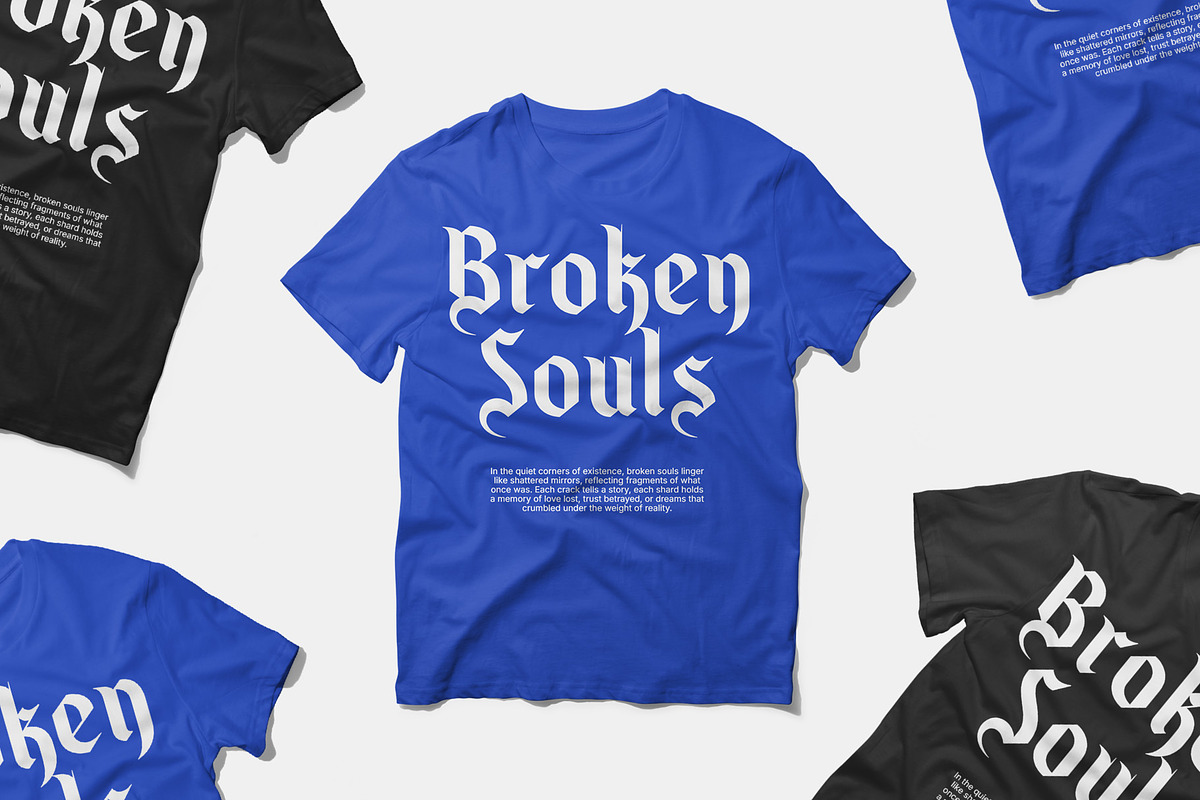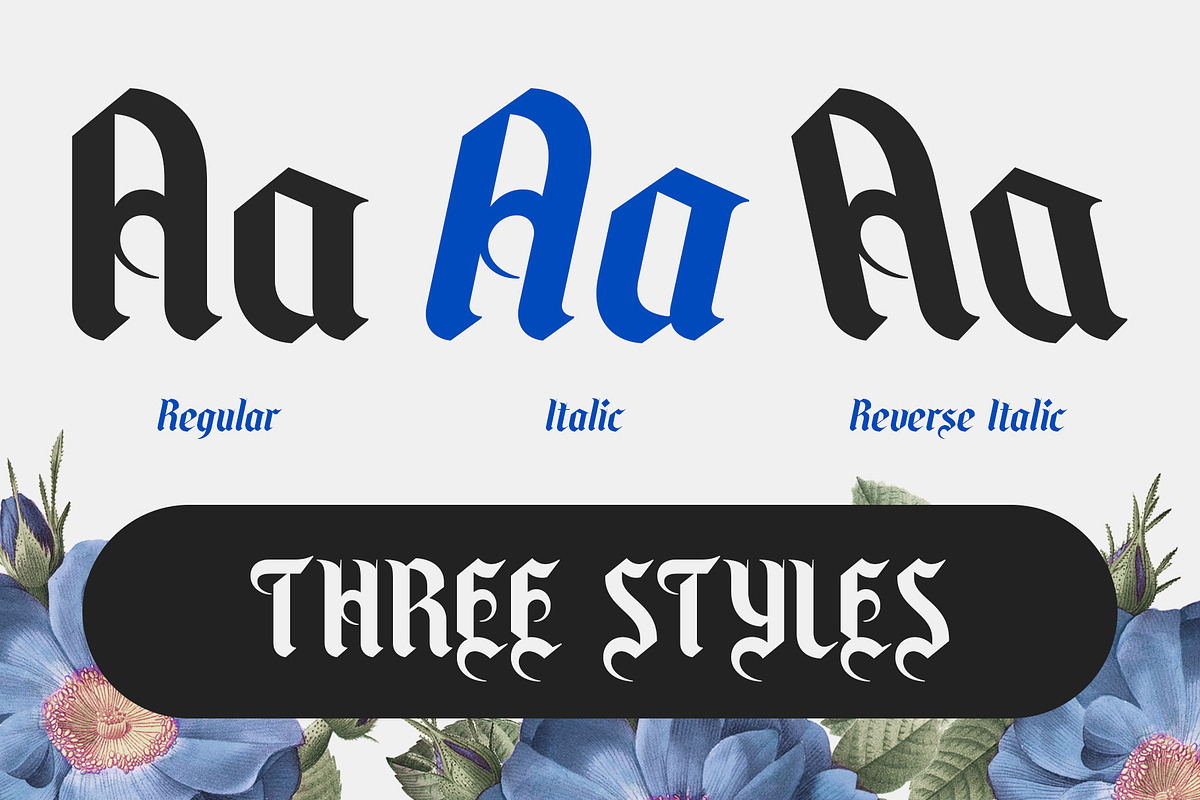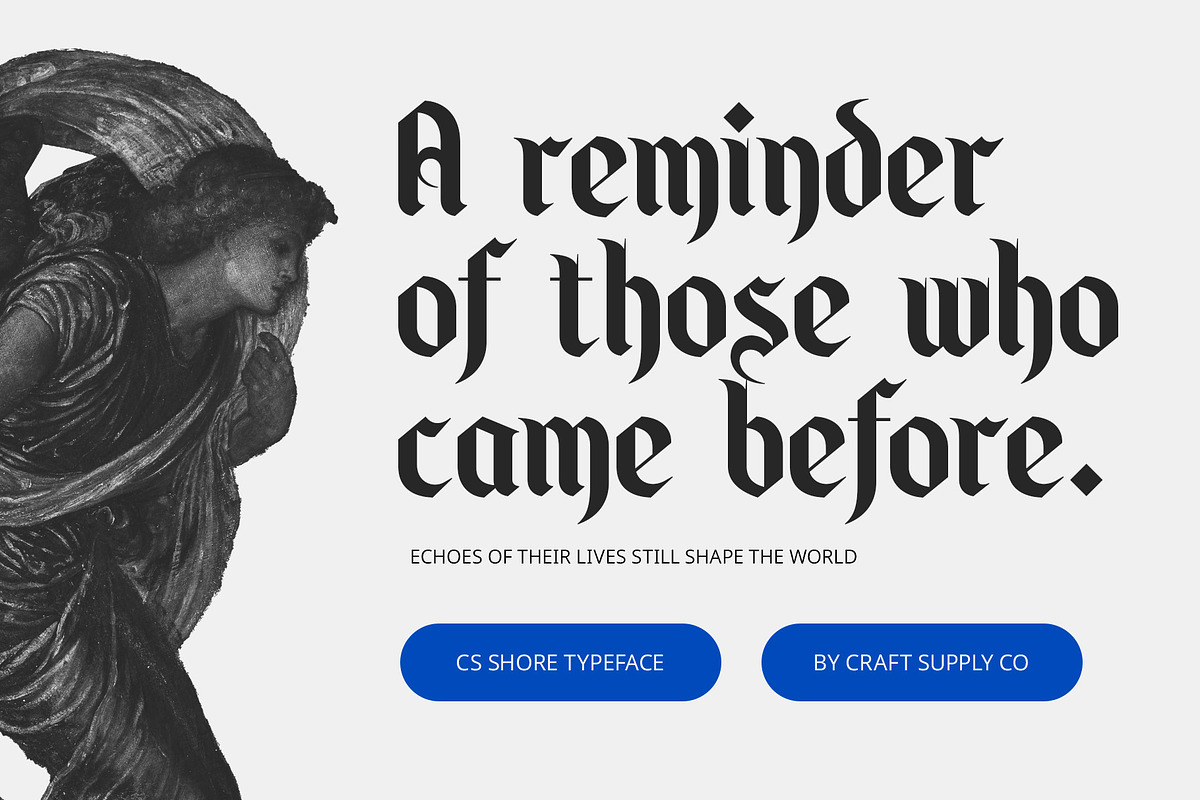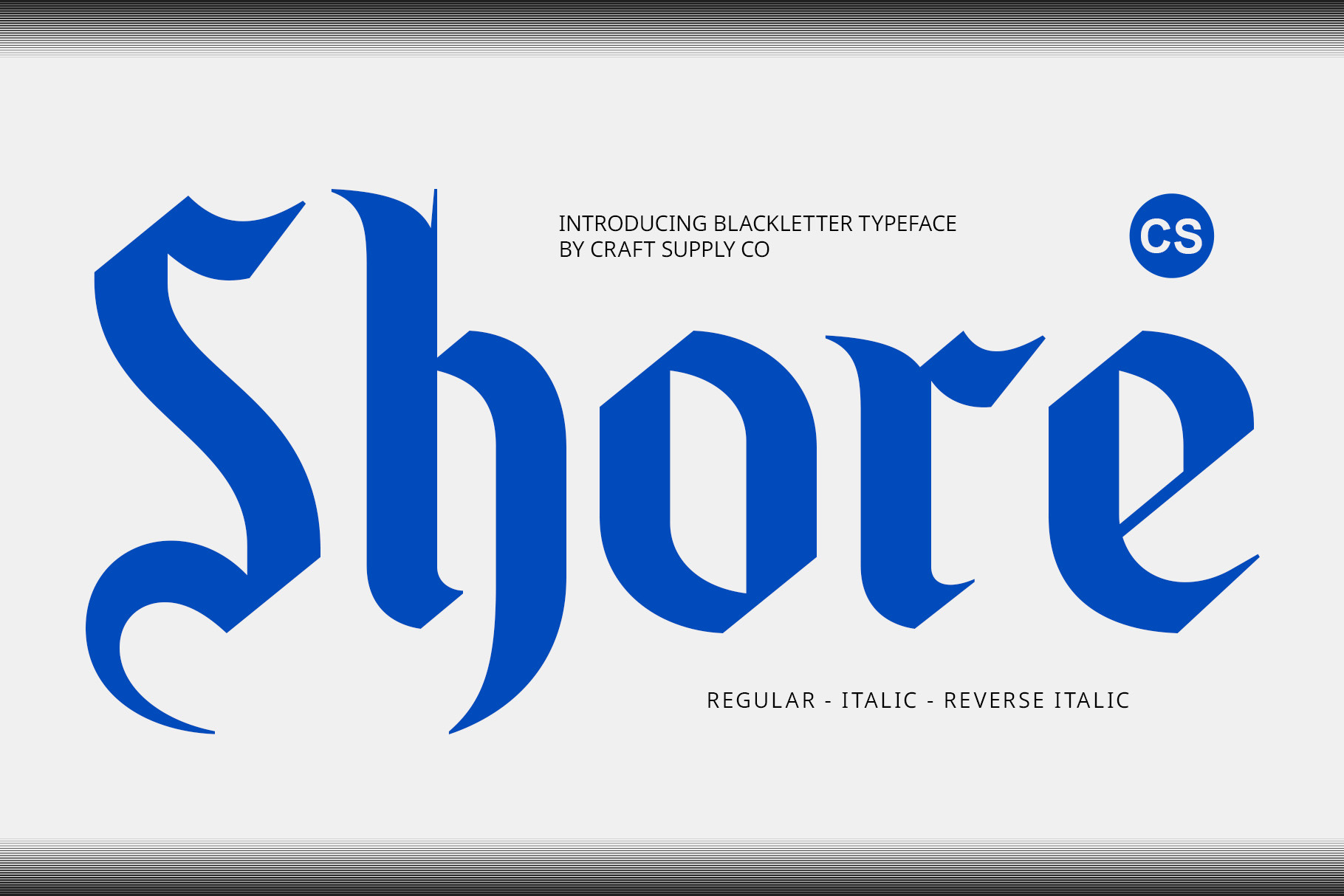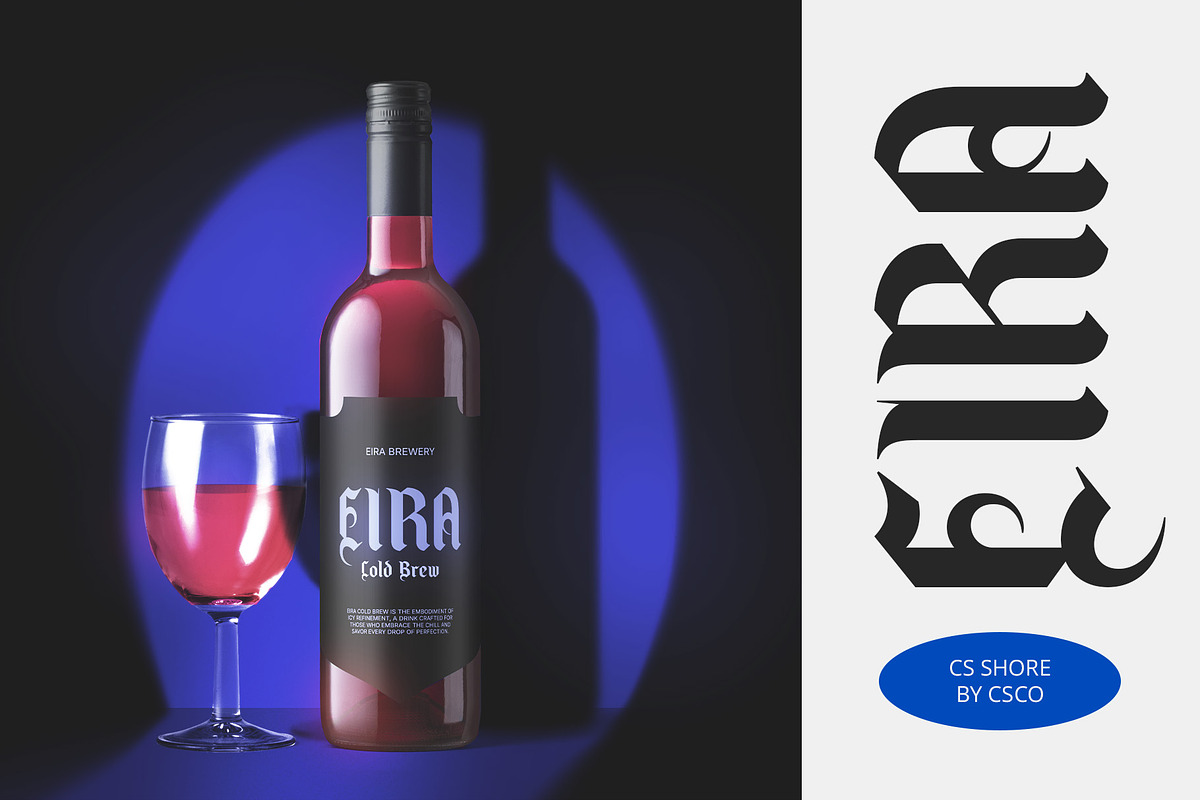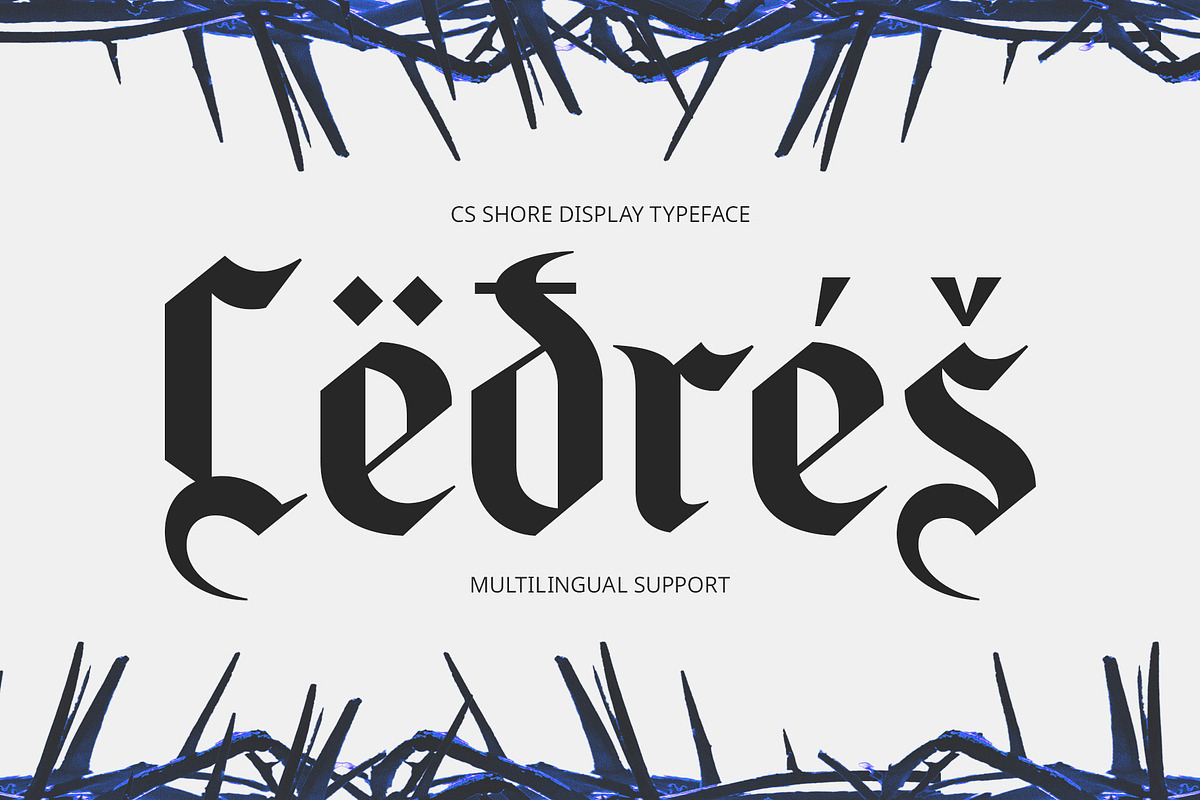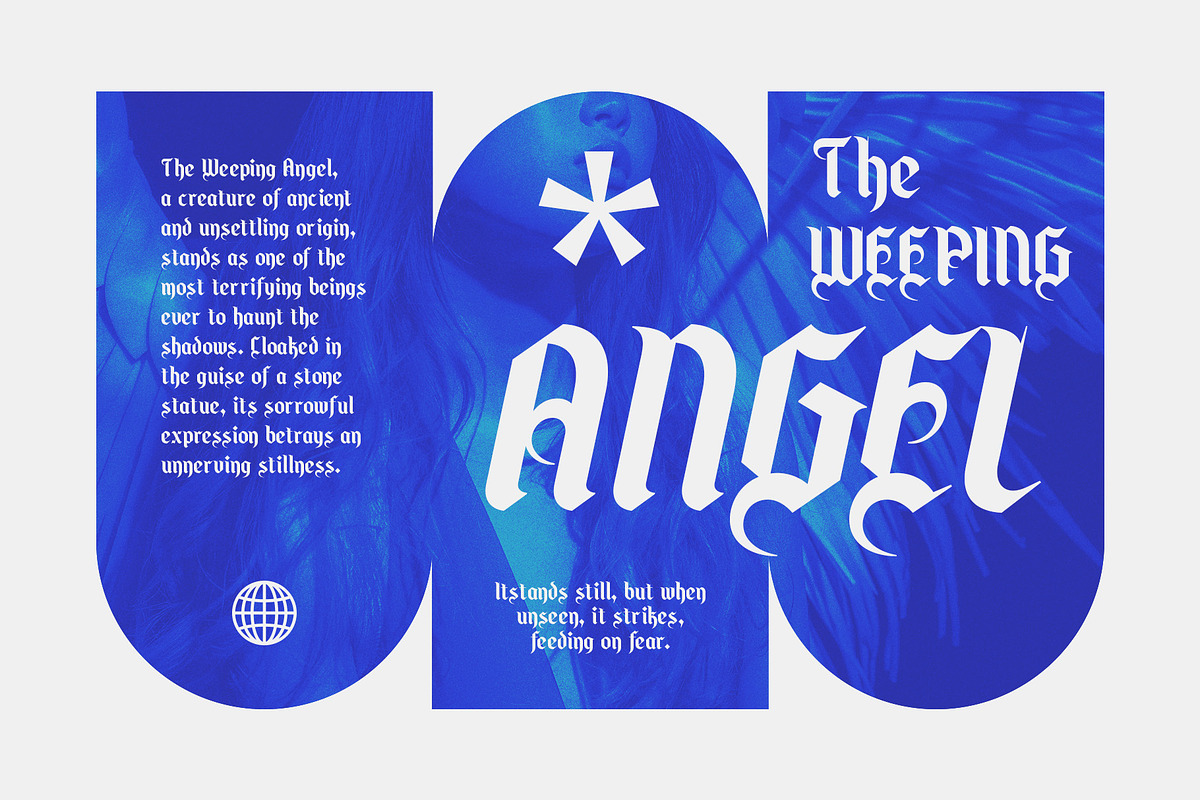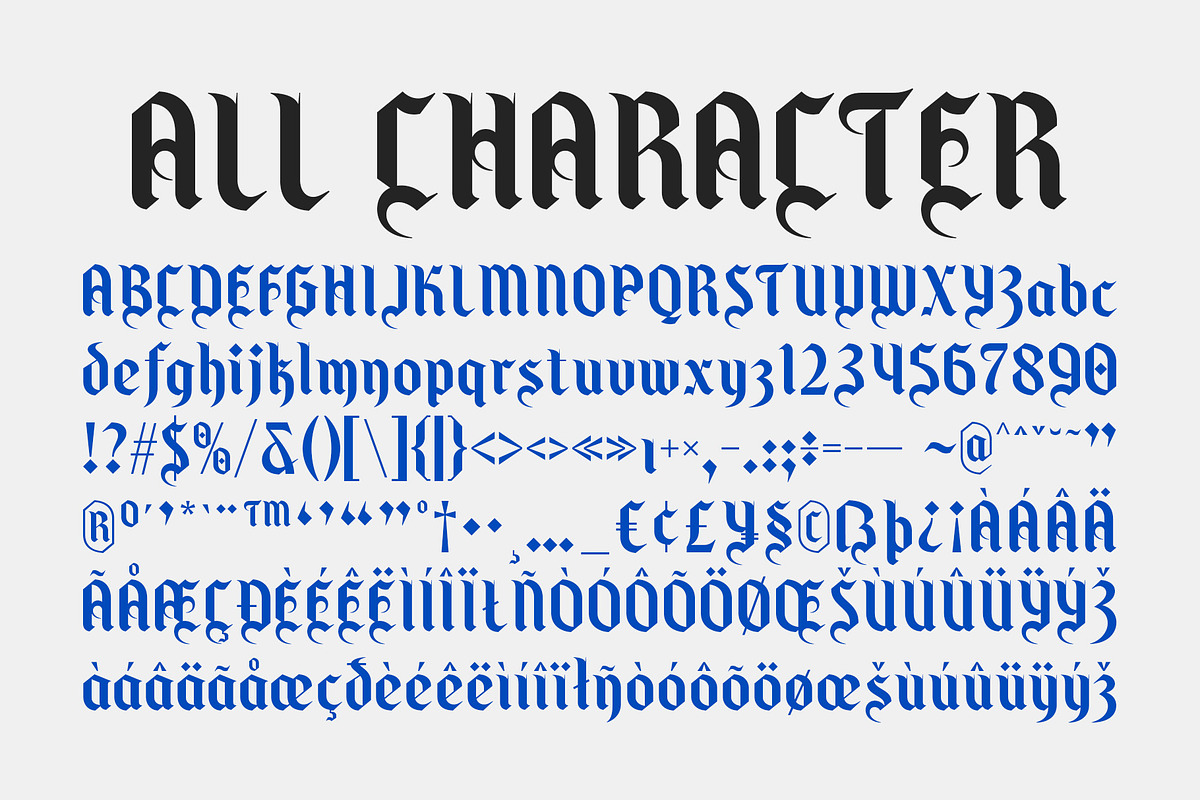
CS Shore – Gothic Font
CS Shore – Modern Gothic Display Font
Classic Elegance with a Contemporary Twist CS Shore is a modern Gothic display font that combines the traditional beauty of Gothic design with a sleek, contemporary edge. The font retains bold, sharp lines, intricate serifs, and decorative flourishes inspired by medieval art and architecture, while incorporating modern elements such as clean, structured forms and minimalist detailing. This fusion creates a unique, refined aesthetic that bridges the gap between history and modernity.
Dramatic and Elegant Presence With its striking combination of boldness and intricacy, CS Shore delivers a strong, dramatic presence that commands attention. The sharp angles and bold letterforms lend an authoritative yet graceful impression, perfect for designs seeking to evoke power, mystery, and sophistication. This font has a distinctive, regal quality that stands out in both traditional and modern contexts.
Perfect for Majestic and Mysterious Designs CS Shore excels in projects that require a sense of grandeur and elegance, making it ideal for luxury branding, fantasy book covers, gothic-inspired music posters, and any design that aims to project an air of mystery and authority. The balance between timeless Gothic elements and modern simplicity ensures this font leaves a lasting impression, delivering both strength and grace in every use.
- CS Shore Regular
- CS Shore Italic
- CS Shore Reverse Italic